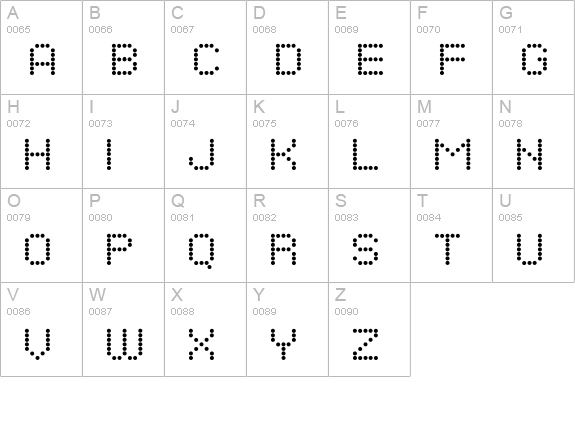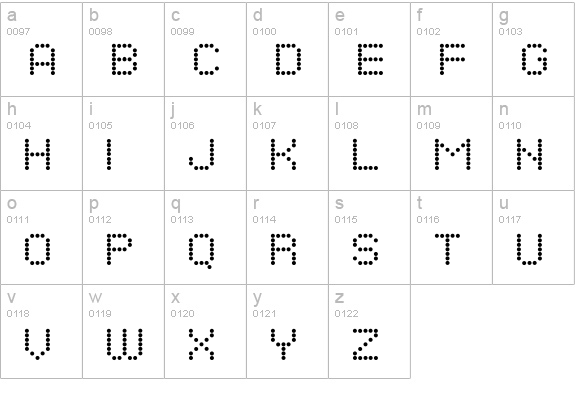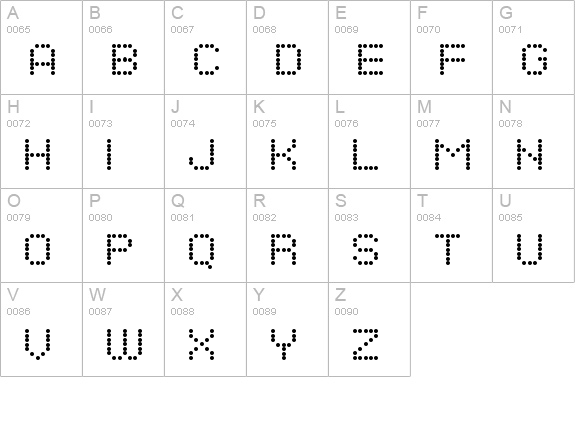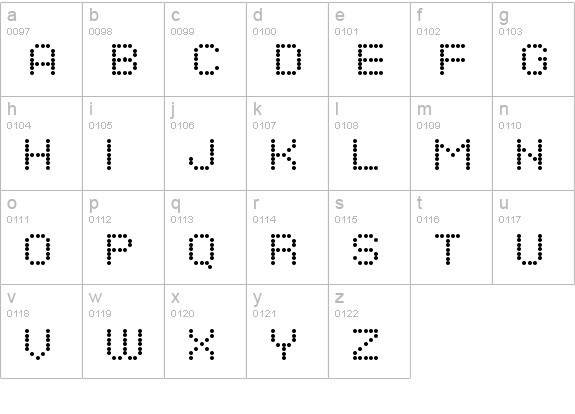
Dots All For Now JL Font Details
Dots All For Now JL font is a unique and playful typeface that features a charming design with dotted elements. This fun and stylish font is perfect for adding a touch of whimsy to your projects, whether it's for invitations, posters, or branding materials. The dots create a sense of movement and energy, making this font a great choice for projects that need a dynamic and eye-catching look. Best of all, Dots All For Now JL font is available for free download at FontsMarket.com. This means you can easily access this delightful font and start using it in your designs without any cost. Don't miss out on the opportunity to enhance your projects with the playful charm of Dots All For Now JL font, available for free at FontsMarket.com.